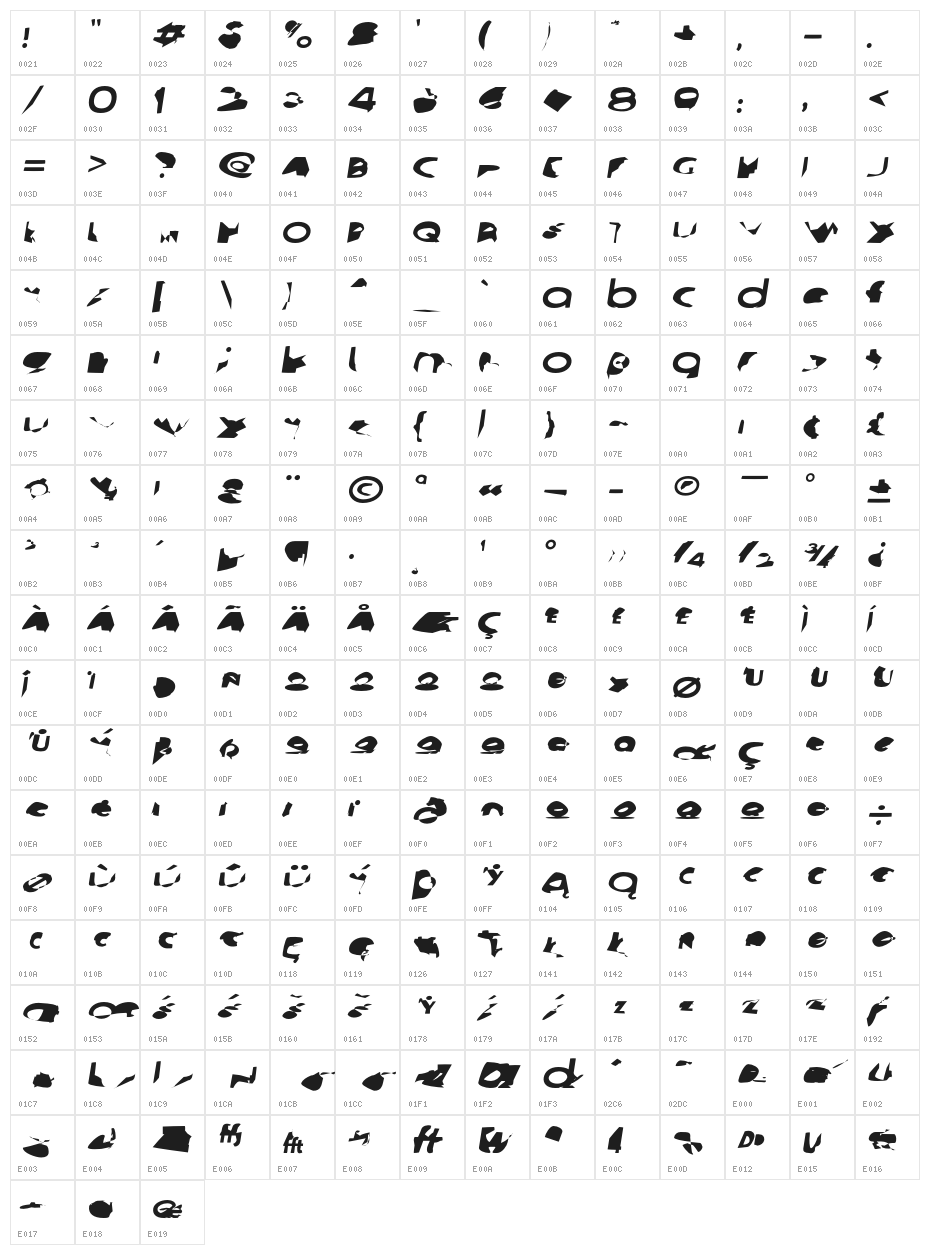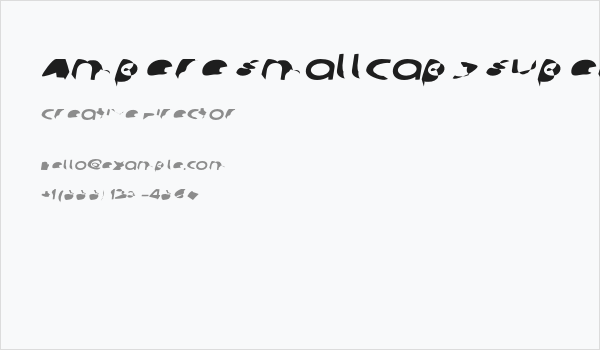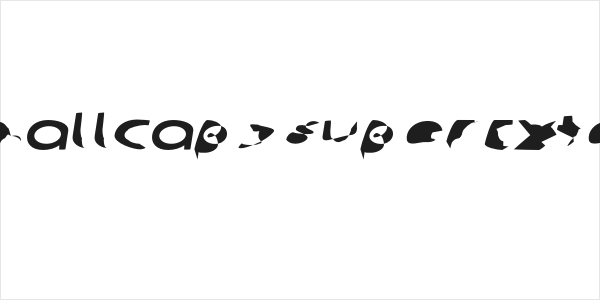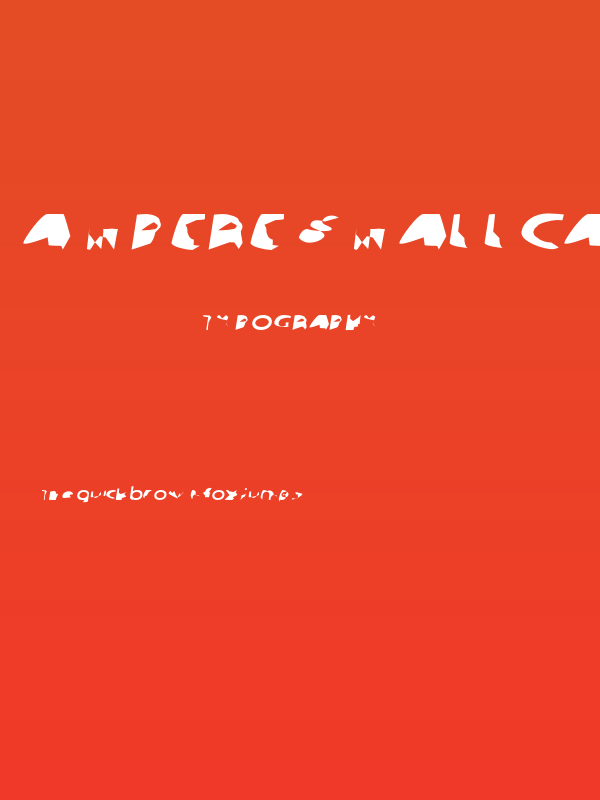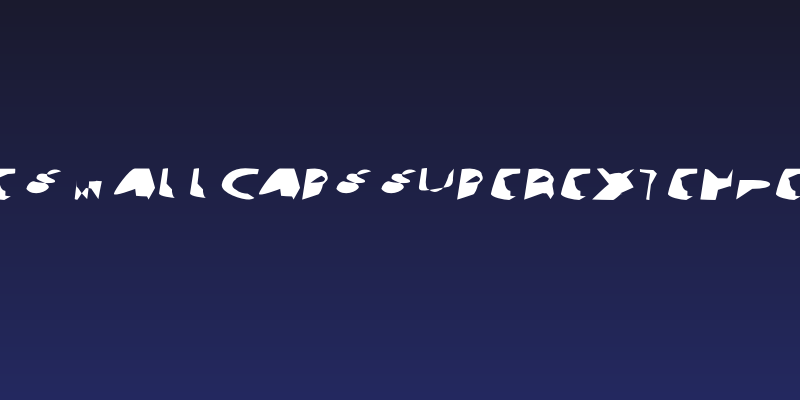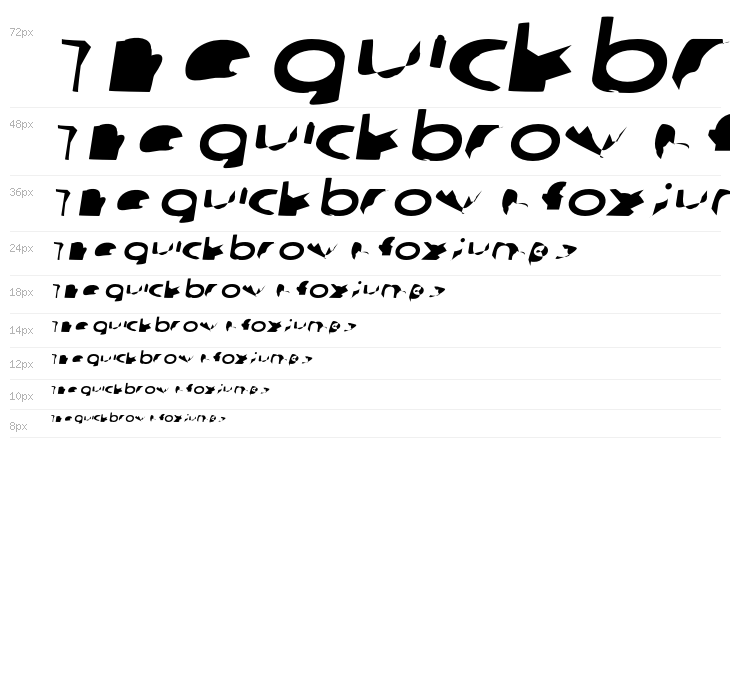
Ampere SmallCaps SuperExtended Italic Font
Ampere SmallCaps SuperExtended Italic Description
This font features a highly stylized and abstract design, characterized by its bold and dynamic shapes. The characters are heavily distorted, with exaggerated curves and angles that create a sense of movement and energy. The uppercase and lowercase letters share a similar style, maintaining a cohesive look throughout. The numbers and special characters follow the same design principles, ensuring consistency. This font's unique appearance makes it stand out, offering a modern and artistic vibe that is both eye-catching and unconventional.
| Use Case | Logos, Posters, Artistic Designs |
| Proposed Projects | Ideal for avant-garde posters, modern art projects, and unique branding materials. |